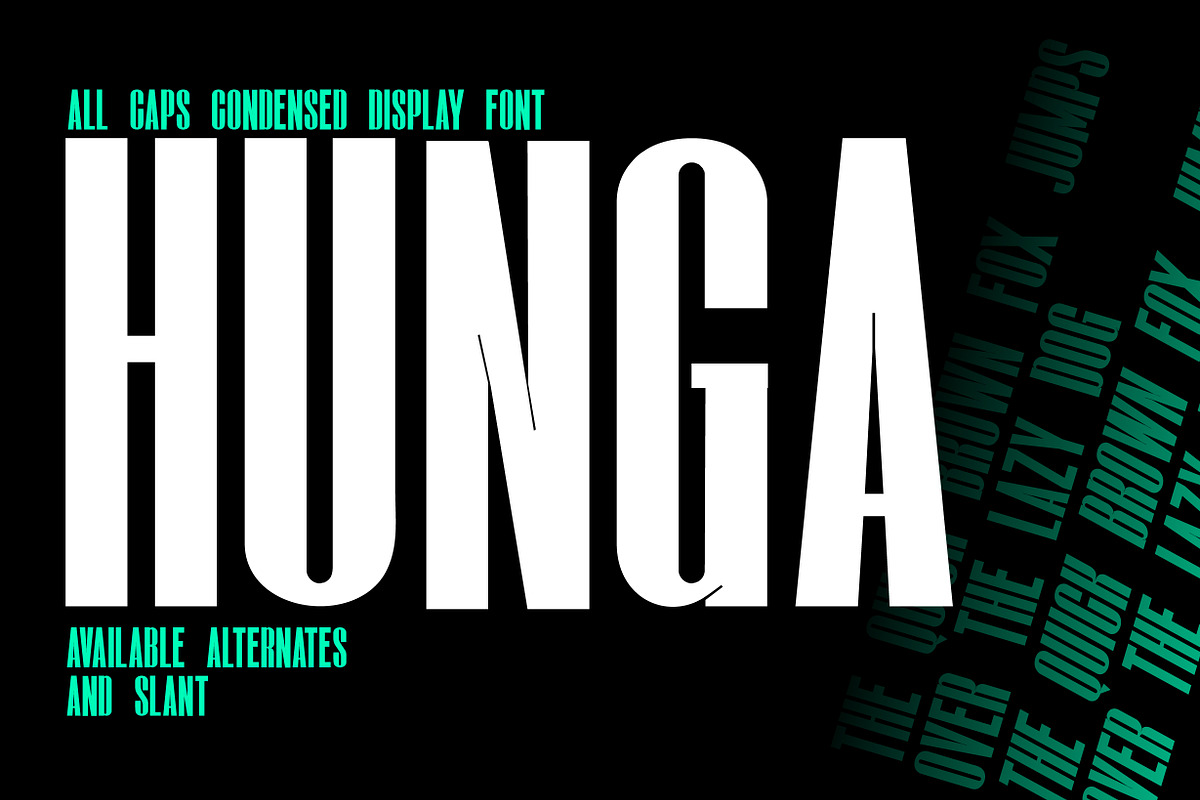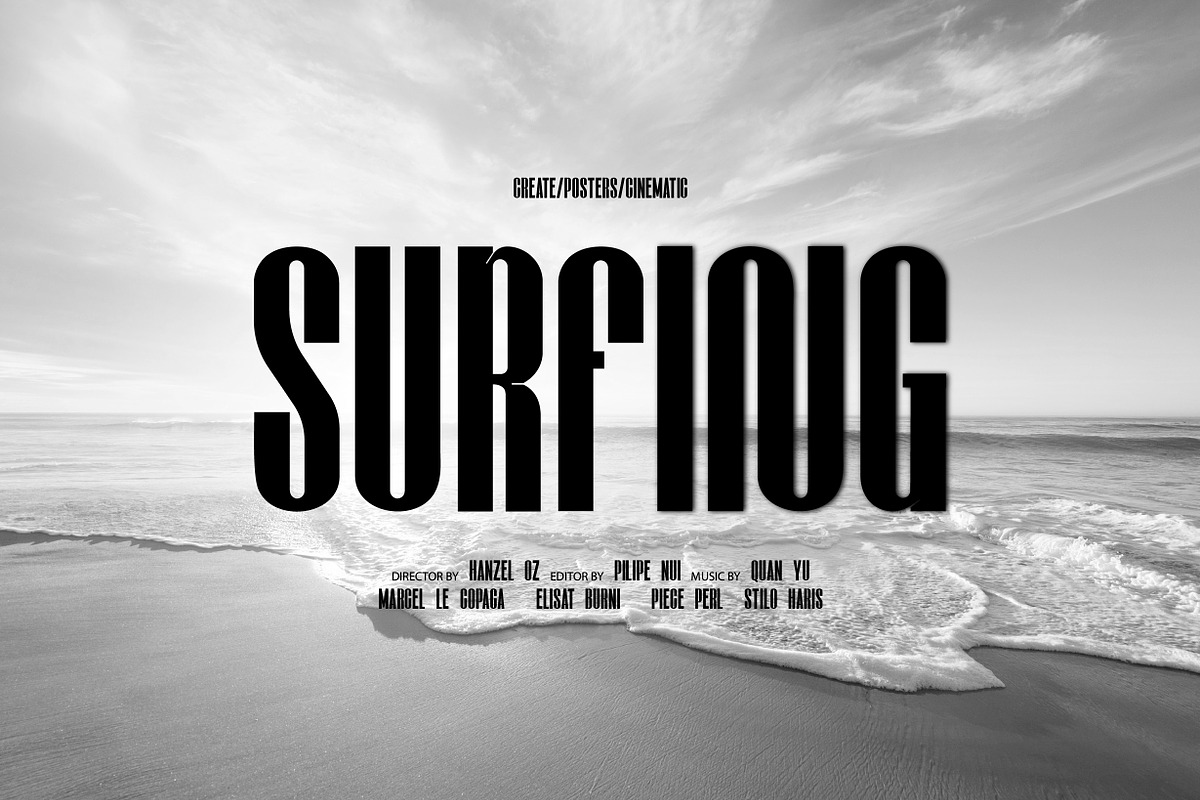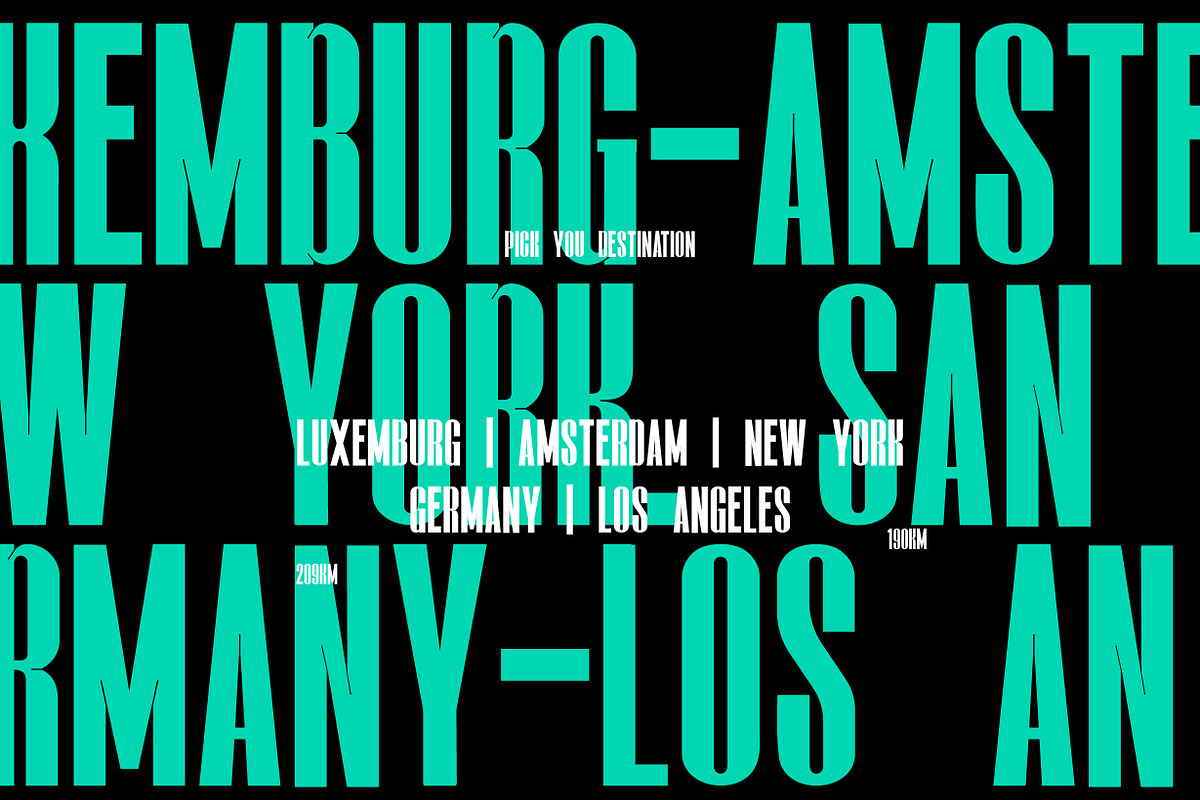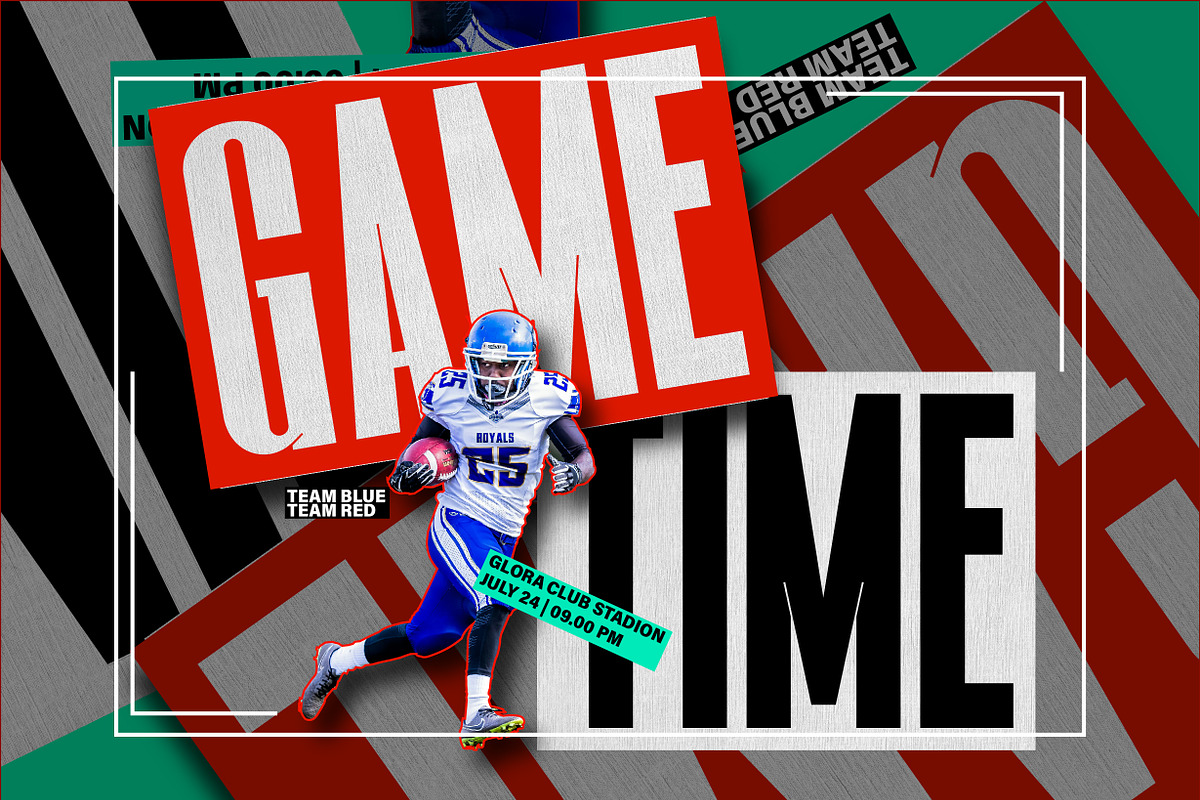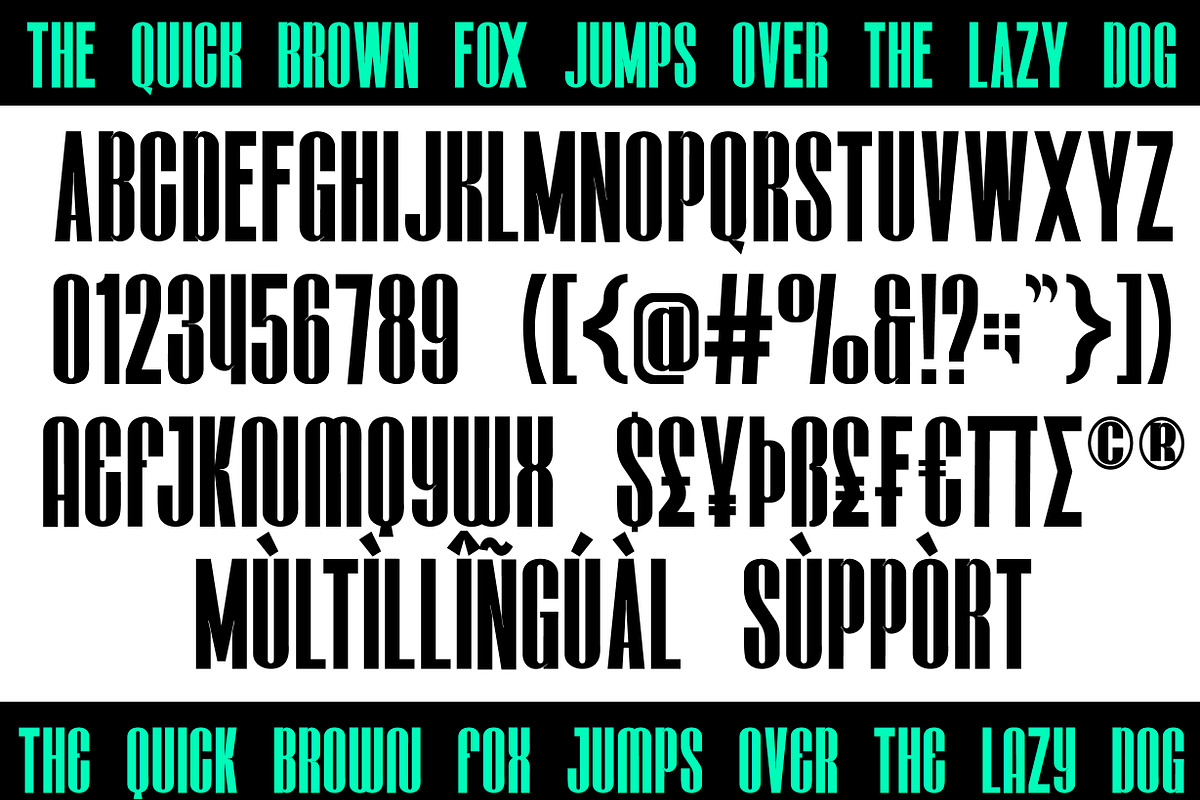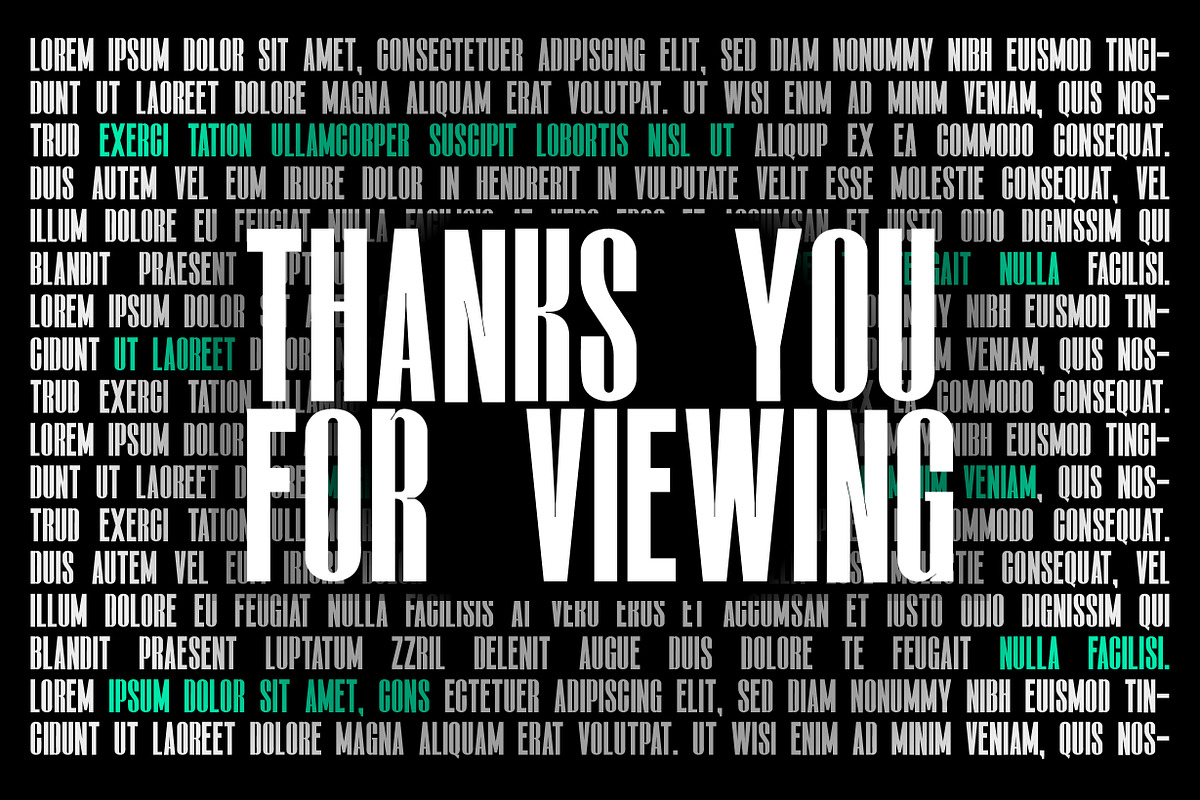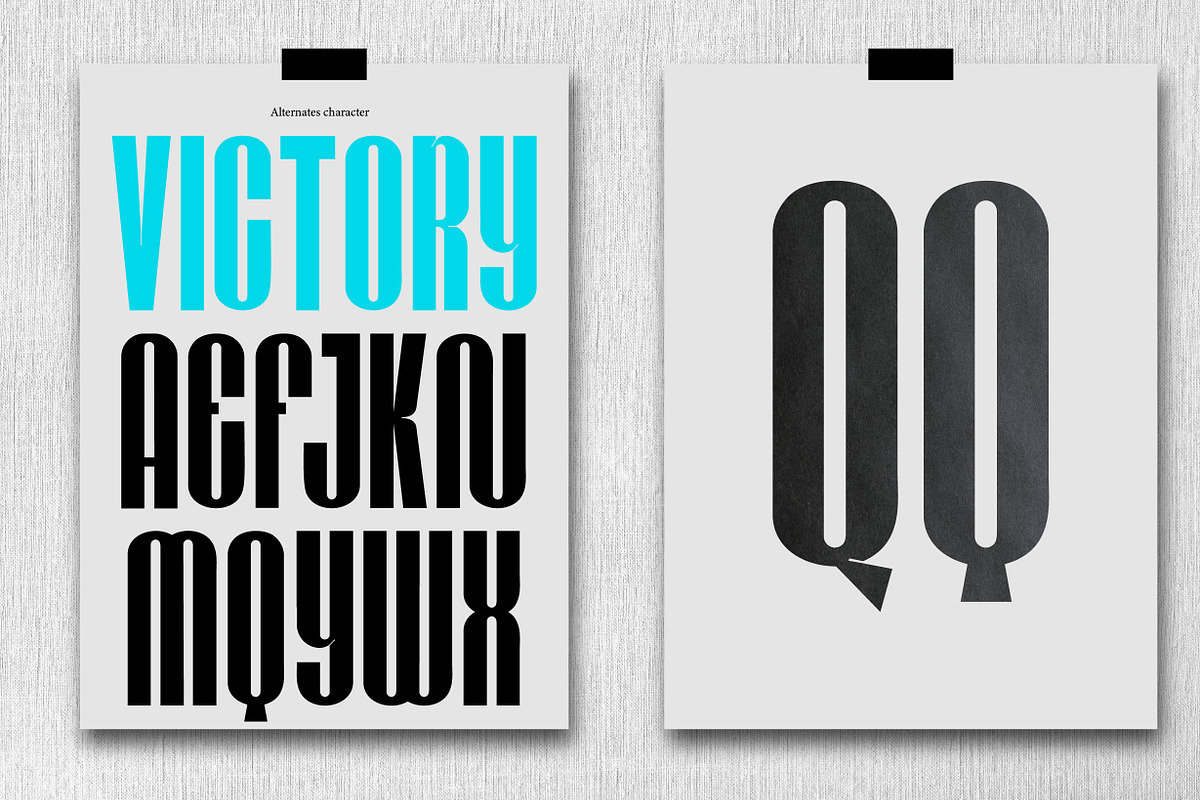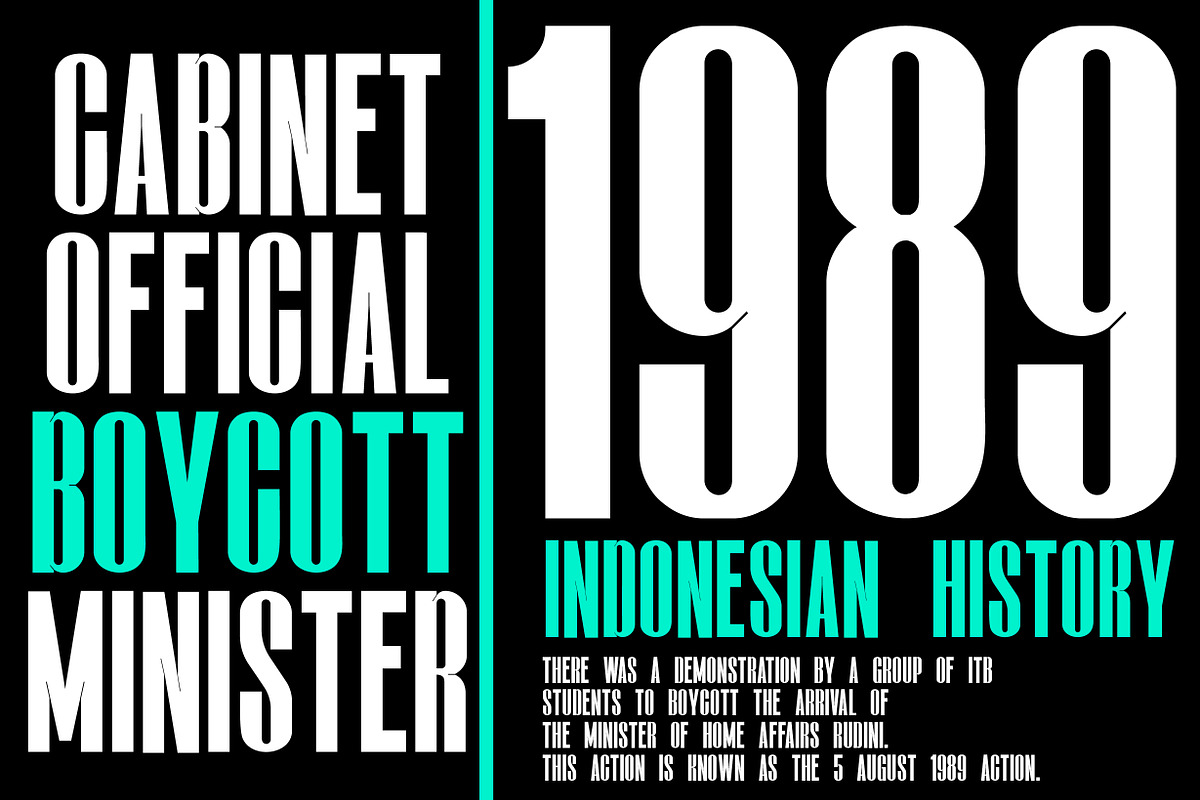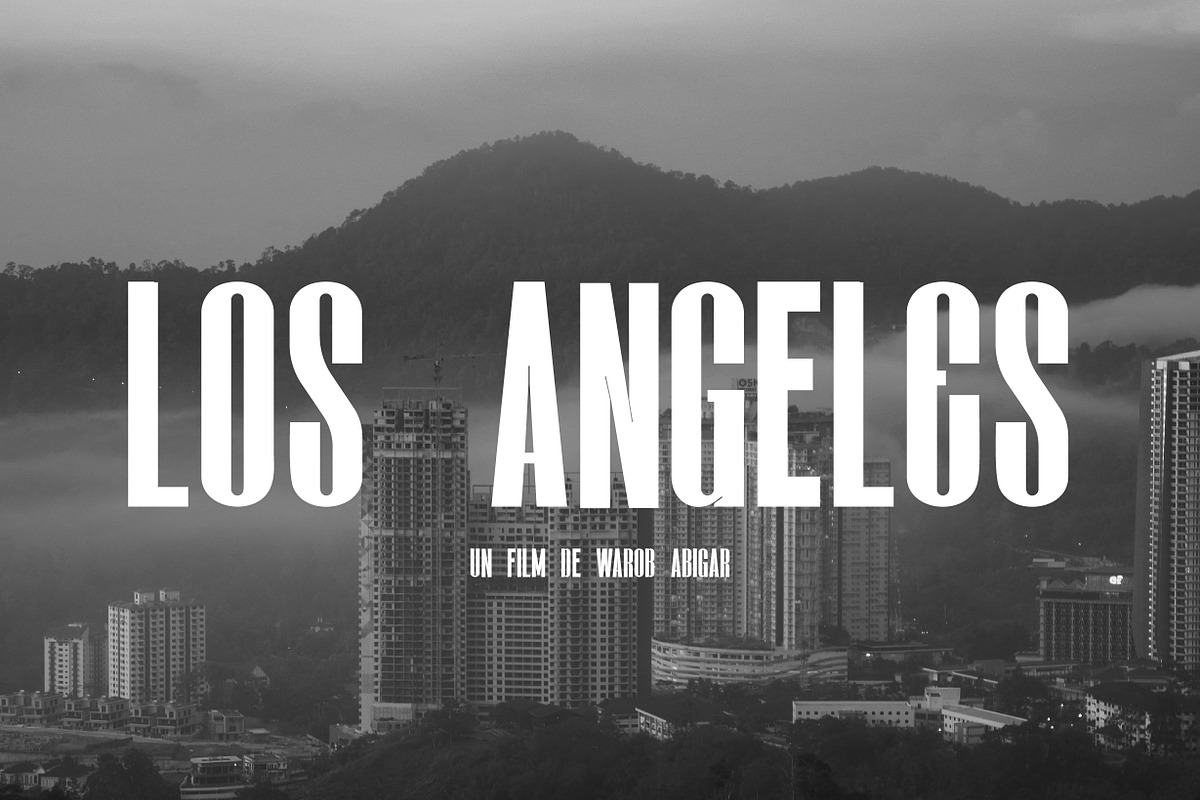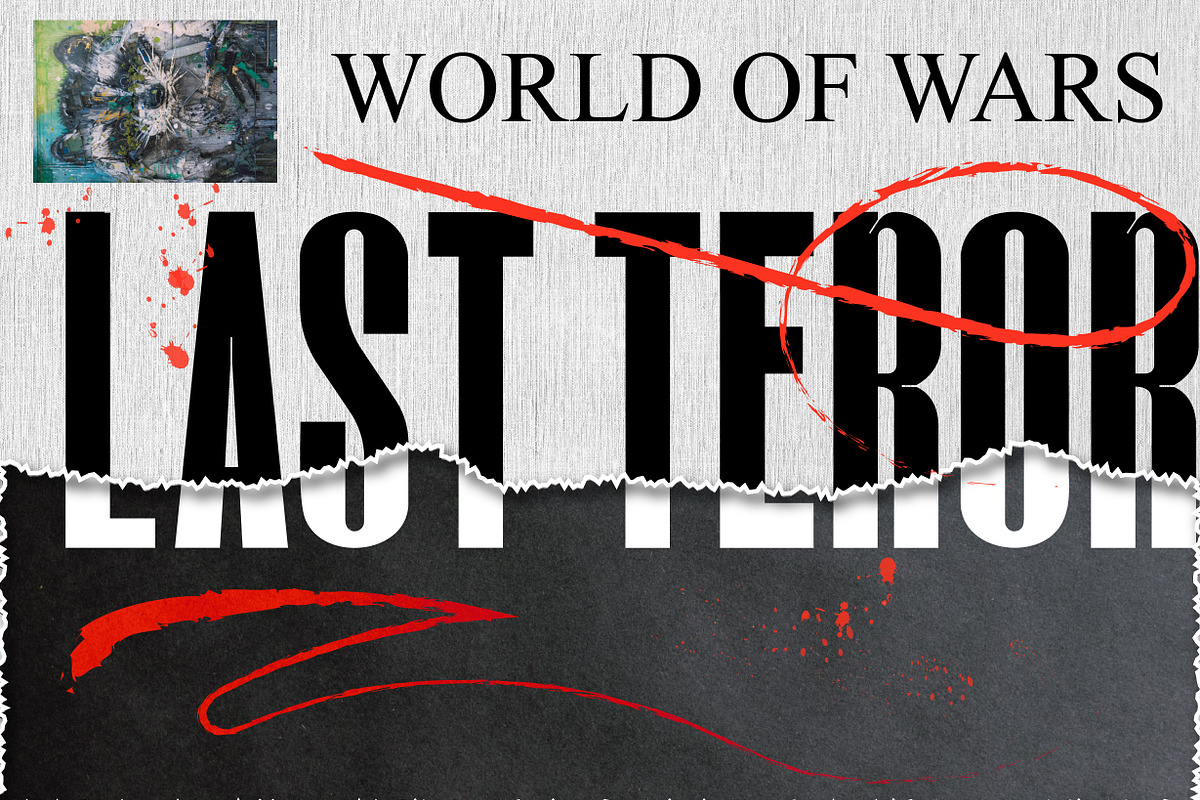
Hunga - Condensed Font
Hunga which has a simple design and condesed style. This font is thick, dense and tall so it looks more minimalist and easy to read. Hunga can be used in modern and contemporary designs, and is suitable for use in various fashion media, posters, magazines, typography and other digital media.
FEATURES;
Foreign Support, Numbers and Punctuation.
Regular, Italic